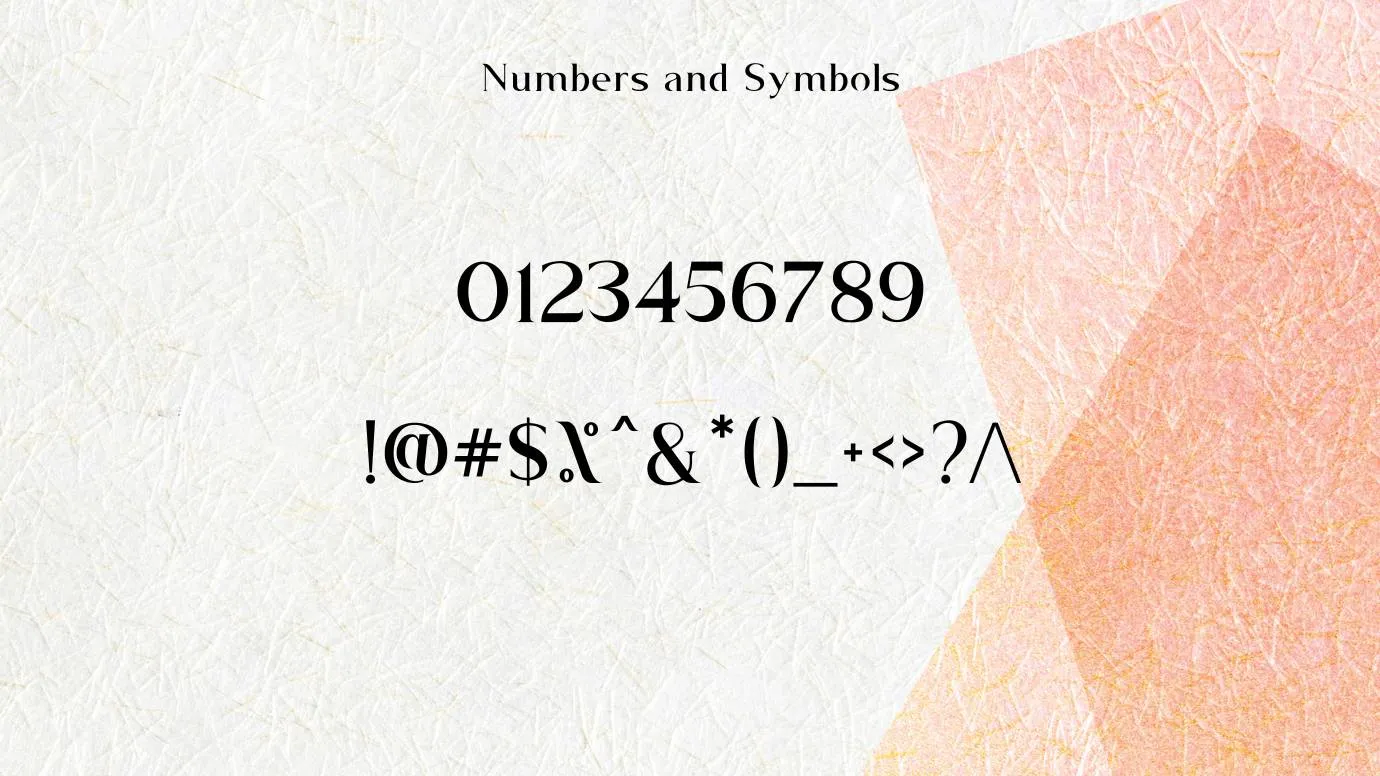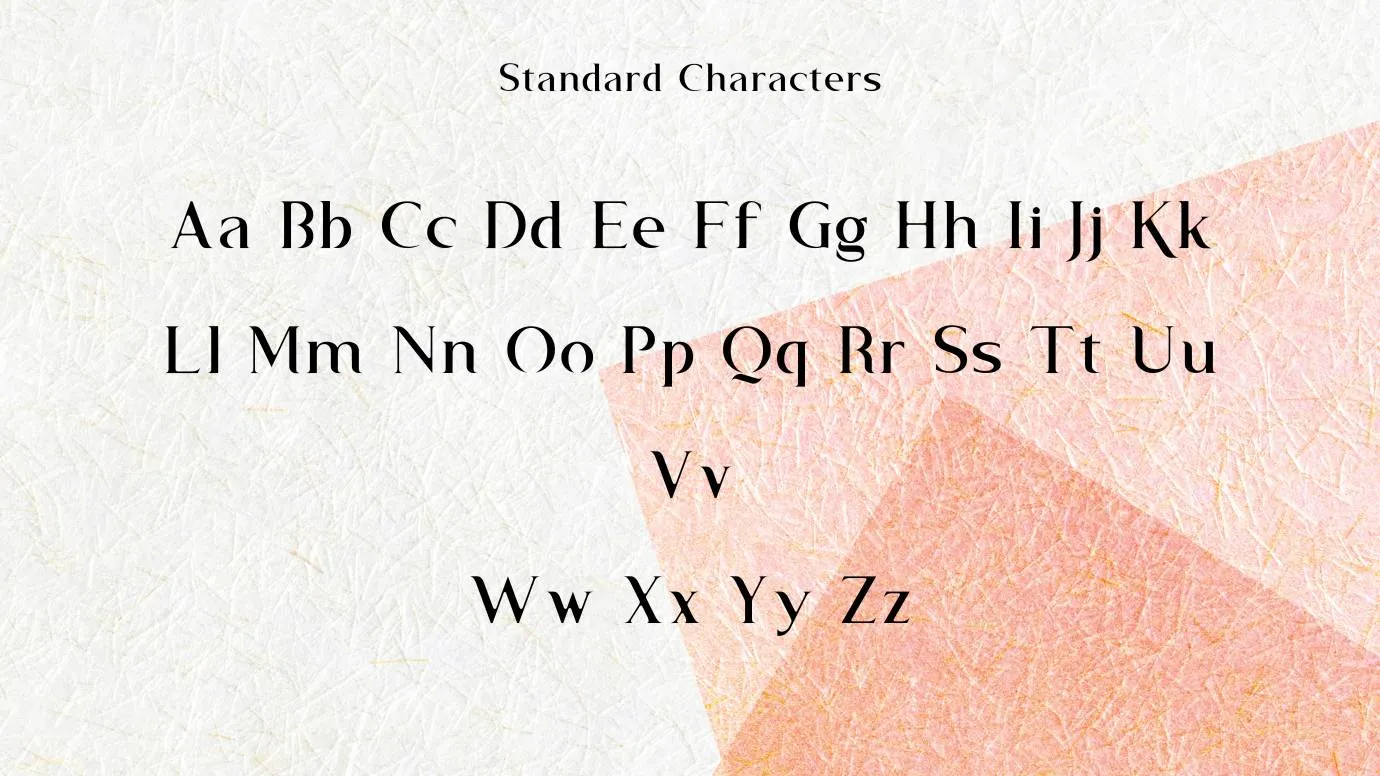
Sambosa Font is a serif typeface that has been used in a variety of types of designs for many reasons. Your simple designs will look bold and stylish with them. Due to its extra bold characters, it works well for titles and headings.
The use of this typeface gives almost every design a heavy look, so it would be an ideal choice for big-text projects. A sleek and strong typeface with all image characters, it makes a solid foundation for blossomed alternatives. These designs are unique and beautiful.
This font is the perfect choice for all of your designs if you are seeking a modern, stylish font. The generator tool of this family can be used. This tool is great for awesome designs. This typeface is best for thumbnail designs, theme designs, and other design projects, this stunning typeface is often selected by designers.
It is an awesome typeface with a very unique style, it can be used for various purposes, including headlines, logos, branding, and more.
It has a nice character in its design which creates amazing pair with another similar typeface for the best results. This text style contains a clear and perfect design that’s effectively visible by its appearance. It also looks very similar to the sabon font.
Designer Hanzel Graphic
Font design can make original graphic designs, banners, manufacturing sector designs, billboards, and movies. Best for attractive newspaper designs, beautiful e-book covers, and comparable design use.
To assess the typeface, in this segment there’s a set of which we select 31 extraordinary characters or with highlights, 26 letters of the letter set in upper and lower case, and the numbering from 10.
The lovely font is beneficial for various social media post designs. You can utilize this beautiful typeface for various quality card designs. With this typeface, you can create a professional logo, heading, or branding. This beautiful typeface is helpful for crafty designs.
What type of font is Sambosa Font?
This tremendous typeface is categorized as a modern serif family. Its bold and bold italic styles make this texture impressive.
Who is the original designer of Sambosa Font?
Hanief Farandi is the original designer of this typography and it was finally published by Hanzel Space.